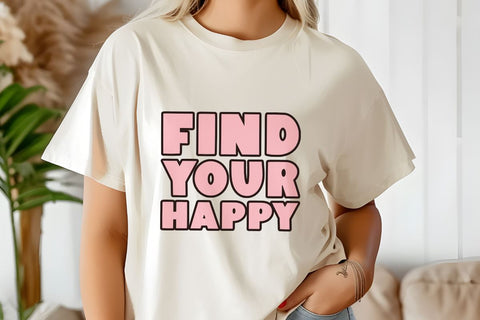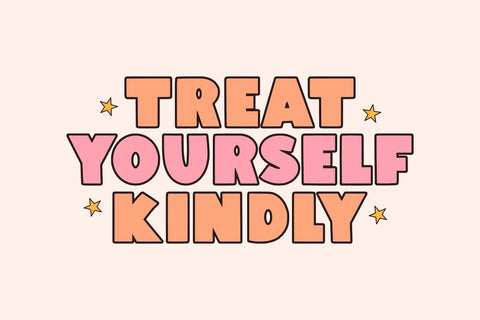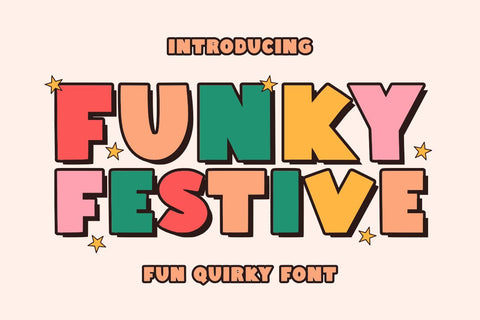
Funky Festive - Fun Quirky Font
Funky Festive is a fun quirky Christmas font. The perfect font for Christmas celebrations in a fun and cute style. This font is inspired by cute style typography. This font is suitable for creative projects such as greeting cards, invitations, t-shirts, apparel, wall art, hoodies, key chains, pillows, mugs, tumblers, Cricut, pizza boxes, book covers, banners, and other creative projects. Apart from that, this font is also suitable for branding and advertising media.